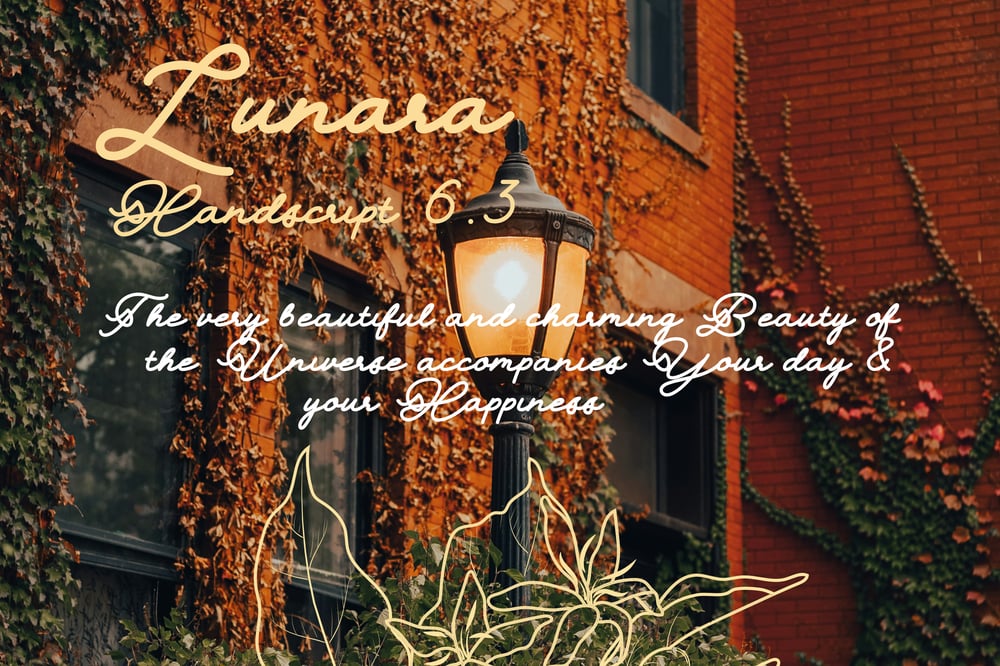
Lunara Handwriting Script 6.3 Font Family was designed by Ar Ars and published by Font Seven. Lunara Handwriting Script 6.3 contains 1 styles and family package options. Discover the timeless elegance of Lunara Handwriting Script 6.3, a stunning handwritten font that combines modern sophistication with natural charm. Perfectly crafted for designers, crafters, and creatives, this script font captures the essence of personal touch while offering impeccable readability.Lunara Handwriting Script 6.3 is designed with smooth curves, delicate strokes, and a flowing structure that mimics authentic penmanship. Whether you’re working on wedding invitations, branding, logo design, greeting cards, or social media posts, this font adds a sense of luxury and warmth to any project.Why Choose Lunara Handwriting Script 6.3?This font stands out for its balance between casual handwriting and professional-grade aesthetics. Its organic yet polished look makes it the go-to choice for both minimalist and elaborate design themes. Whether you’re a graphic designer, DIY enthusiast, or entrepreneur, Lunara Handwriting Script 6.3 empowers you to create standout visuals that leave a lasting impression.Perfect for Projects Like: Wedding Stationery Branding & Logo Design Business Cards Inspirational Quotes Fashion & Beauty Packaging Invitations & Greeting Cards Social Media Graphics